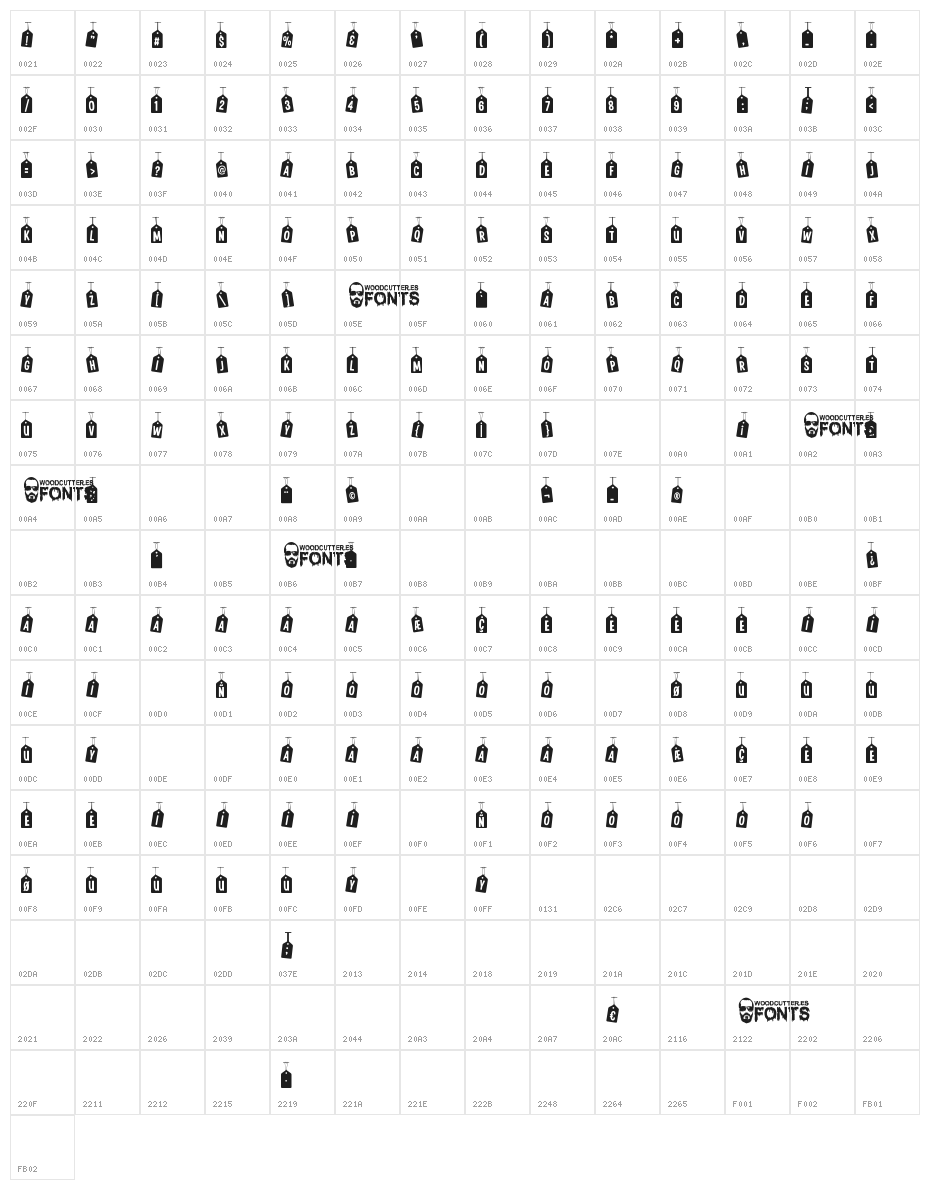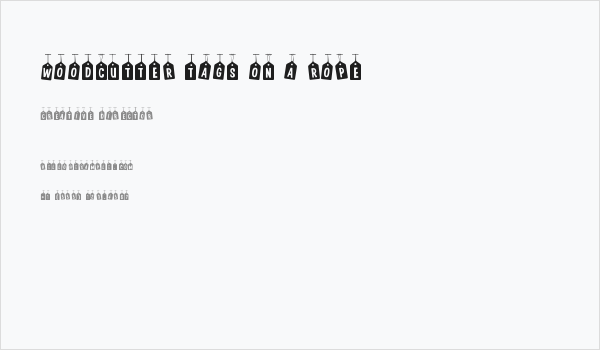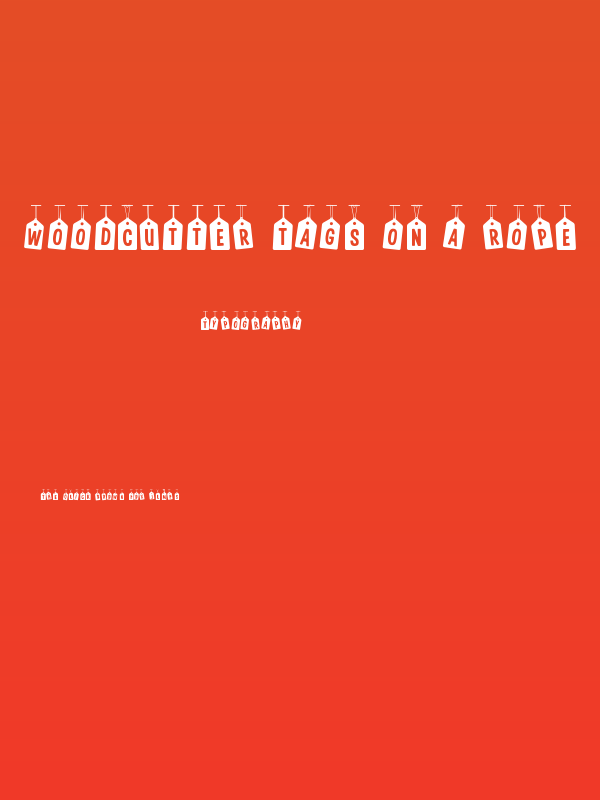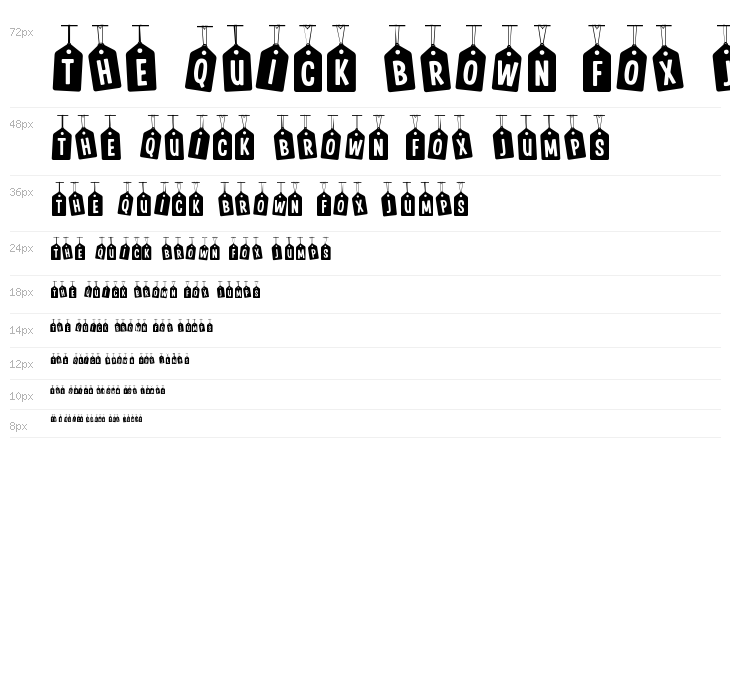
Woodcutter Tags on a Rope Font
Woodcutter Tags on a Rope Description
This font features characters displayed on individual tags, each hanging from a string, creating a unique and playful aesthetic. The letters and numbers are bold and uppercase, with a slightly rounded appearance that adds a friendly touch. The tags are uniformly shaped, resembling traditional luggage tags, and each has a small hole at the top where the string is attached. The design is consistent across all characters, providing a cohesive look. This font is ideal for projects that require a fun and informal style, such as children's books, party invitations, or playful branding materials. The boldness of the characters ensures readability, while the tag design adds a decorative element that stands out.
| Use Case | Headlines, Logos, Decorative text |
| Proposed Projects | Ideal for children's books, party invitations, playful branding, and decorative signage. |